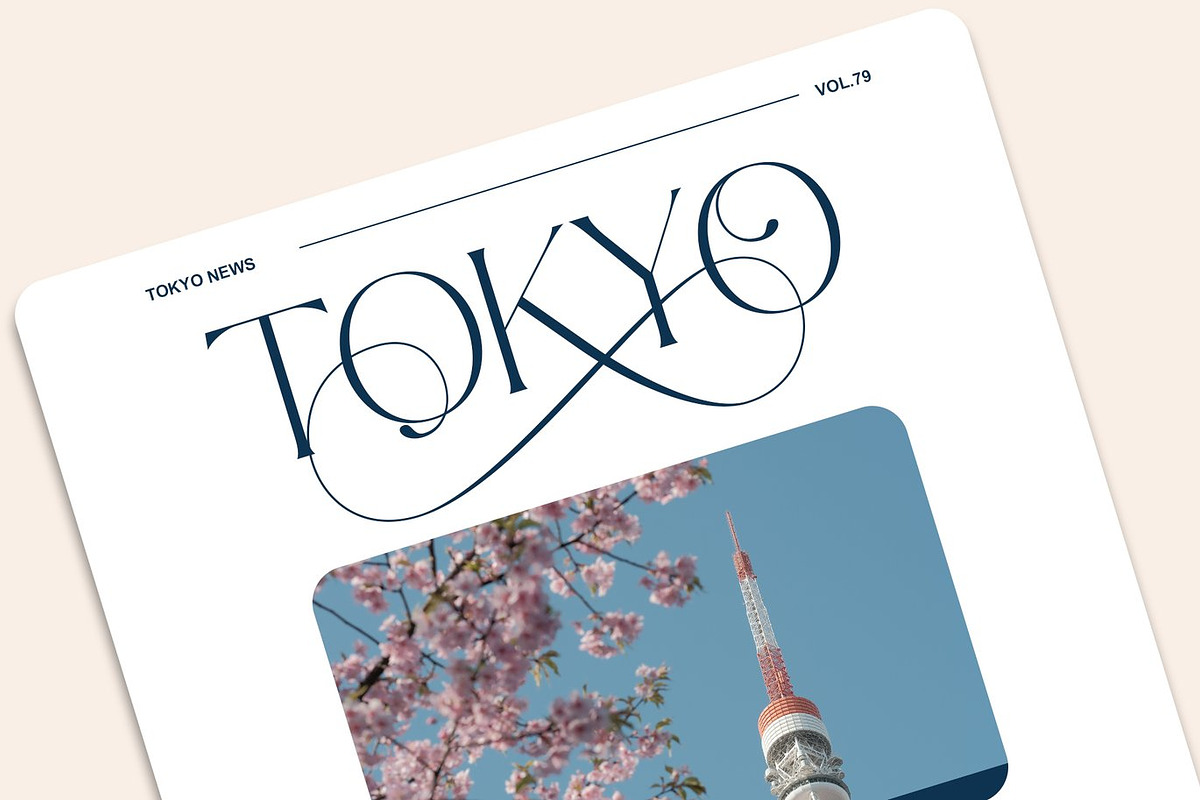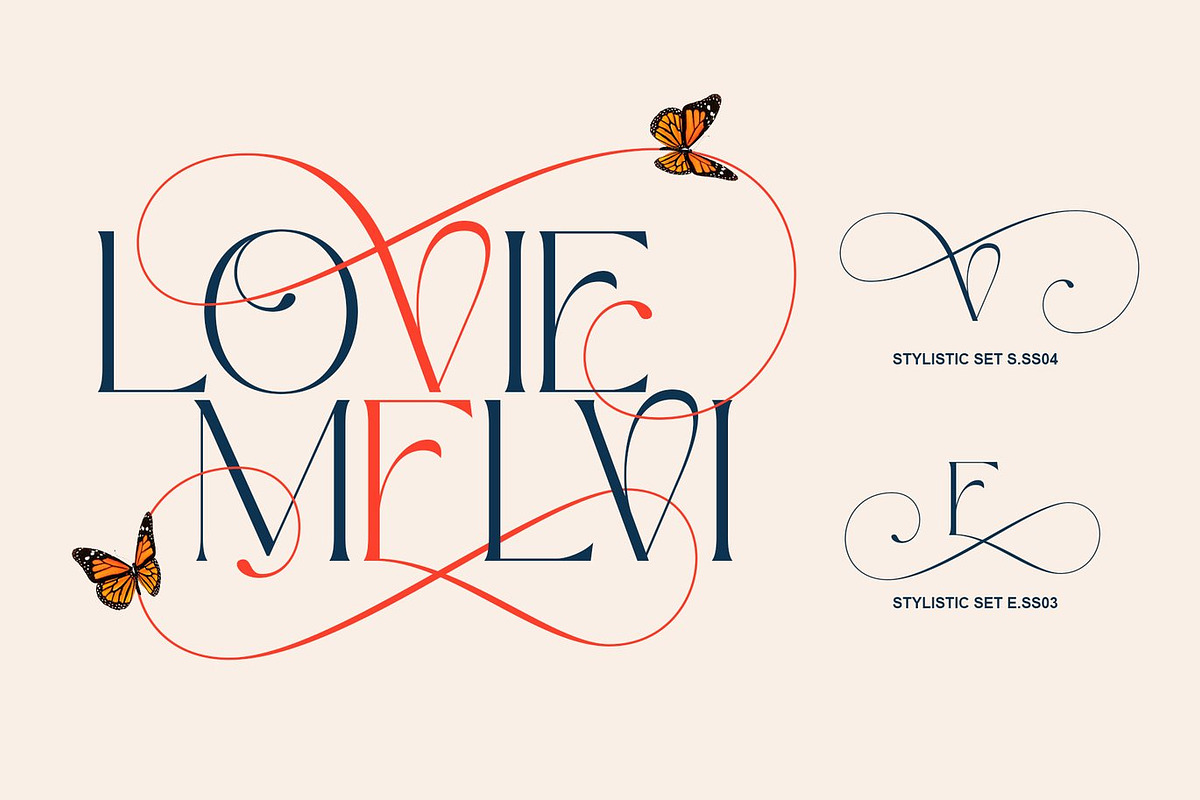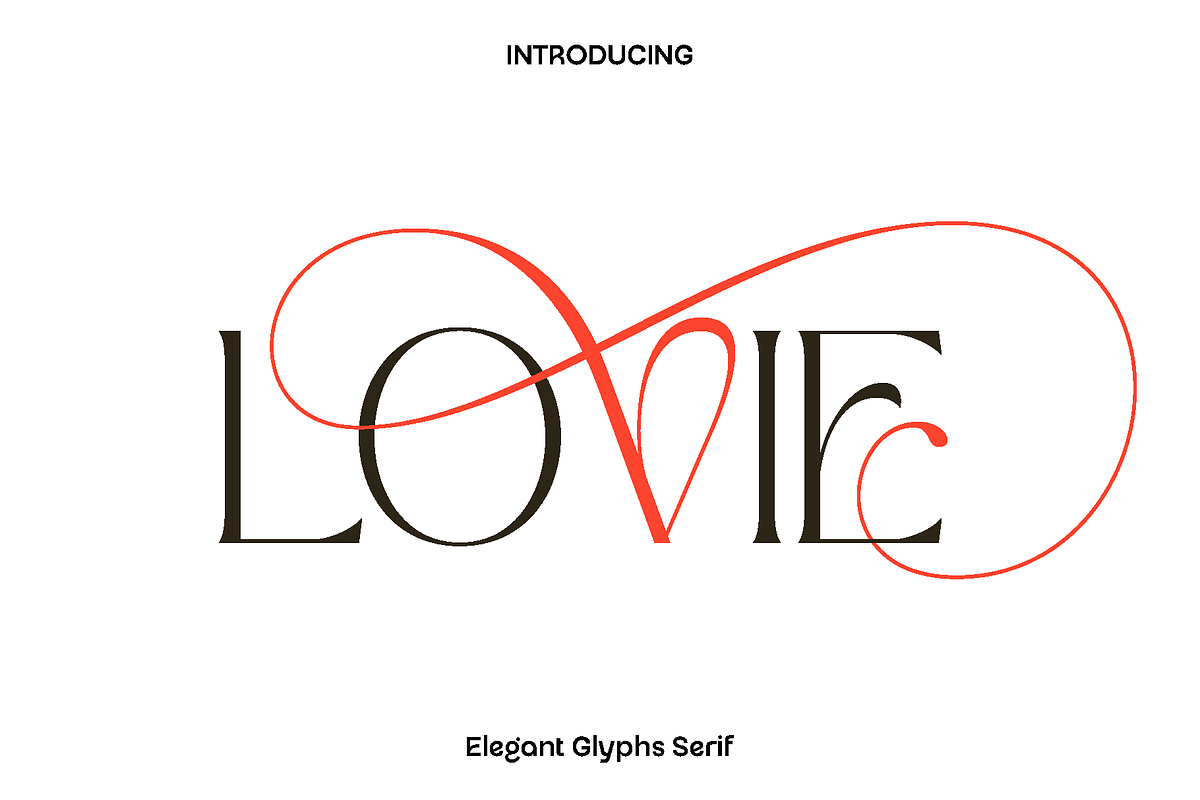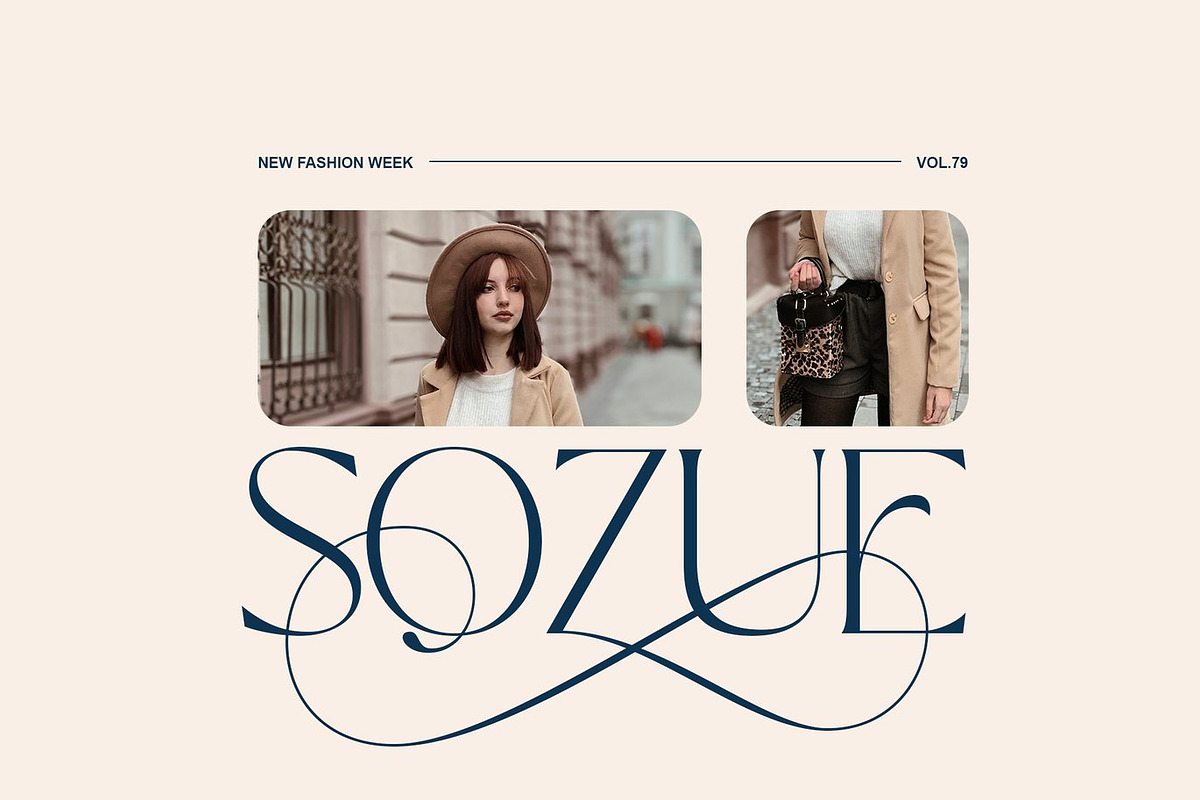
Lovie - Elegant Glyphs Serif
Lovie is a minimalist modern font created to express elegance through simplicity. Designed with clean lines and refined proportions, Lovie brings a calm yet confident personality to your typography. Its subtle beauty makes every word feel intentional, giving your designs a polished and contemporary look that never feels overwhelming.
This font shines in projects that value clarity and style. From luxury branding and logo design to fashion labels, product packaging, magazine headers, and social media visuals, Lovie adapts beautifully to both bold statements and delicate details. Its balanced structure performs perfectly in large headlines and small body text, making it a versatile choice for both print and digital designs.
Lovie feels modern, graceful, and effortlessly stylish. With a wide range of alternate glyphs, it allows designers to add personality and uniqueness to every composition. Whether you are creating a clean brand identity or a soft editorial layout, Lovie enhances your work with elegance and visual harmony.
Lovie Minimalist Modern Font Features:
• Elegant minimalist letterforms
• Special alternate glyphs for creative styling
• Uppercase and lowercase characters
• Numerals, punctuation, and symbols
• OpenType features
• Multilingual support
Lovie is the perfect typeface for designers who love refined simplicity and modern aesthetics, helping every project feel stylish, professional, and memorable.